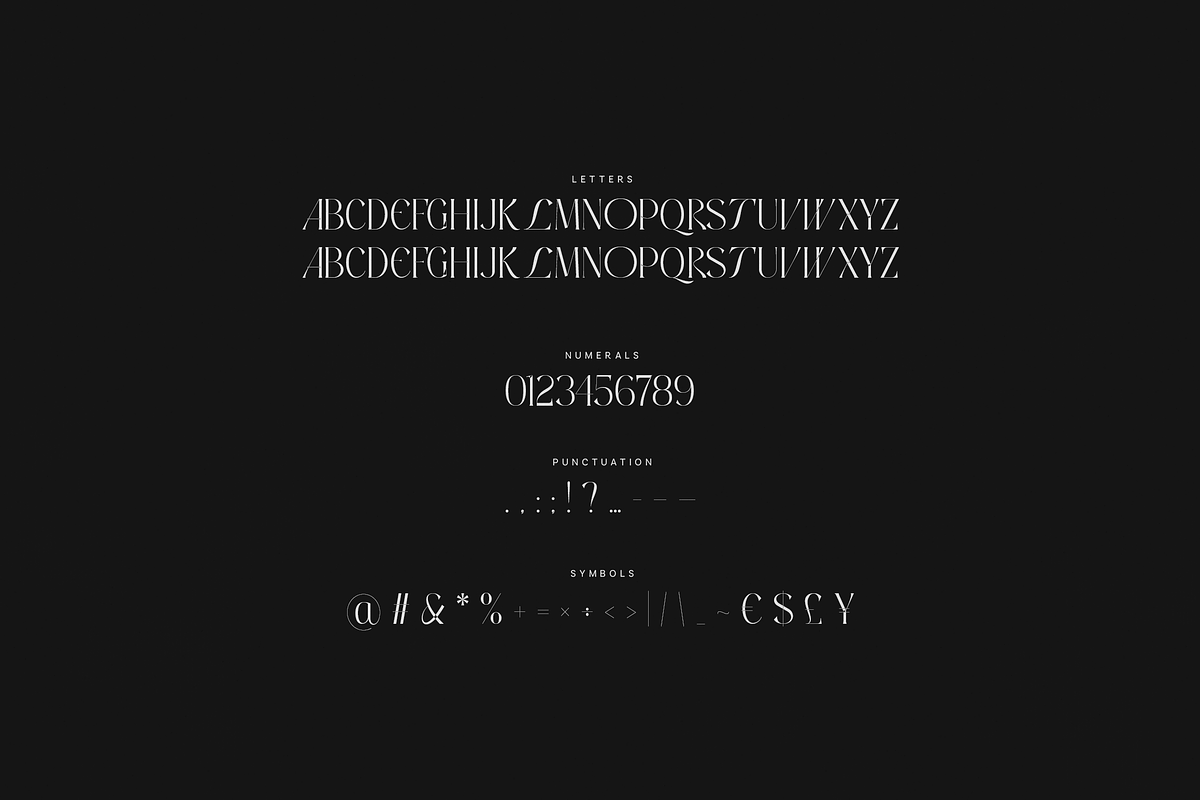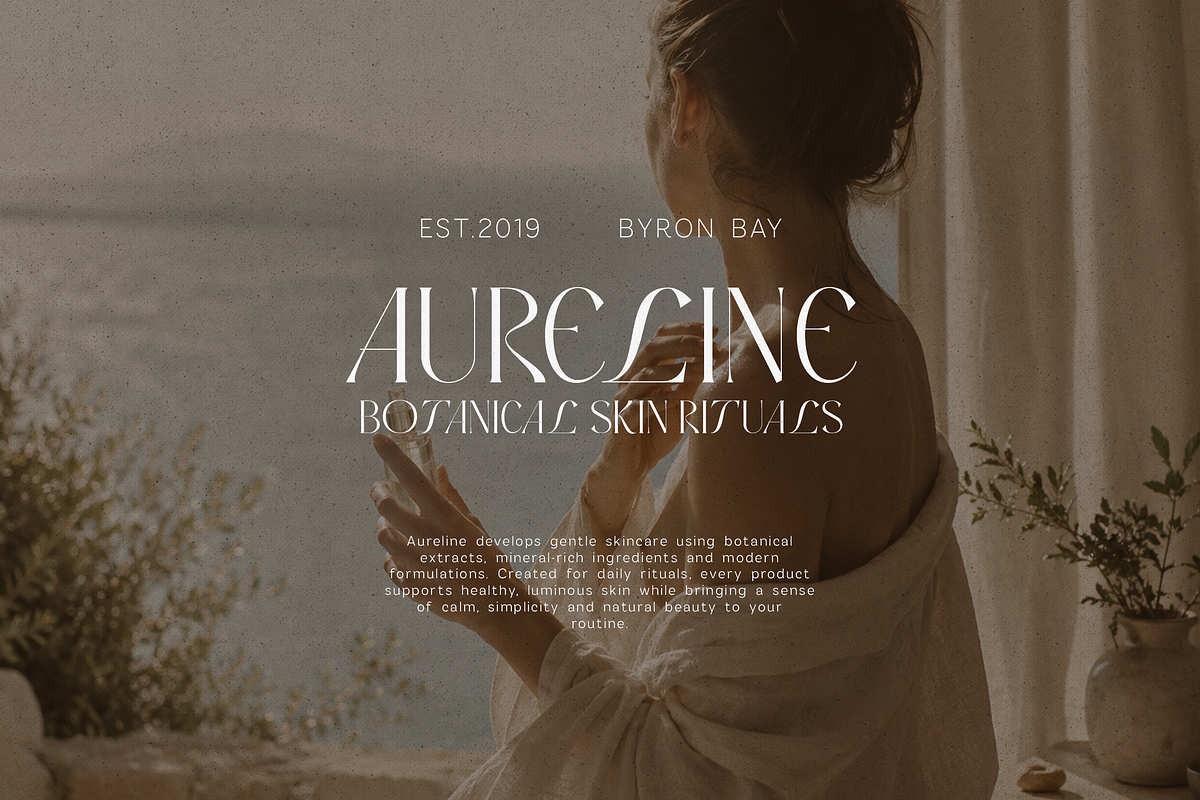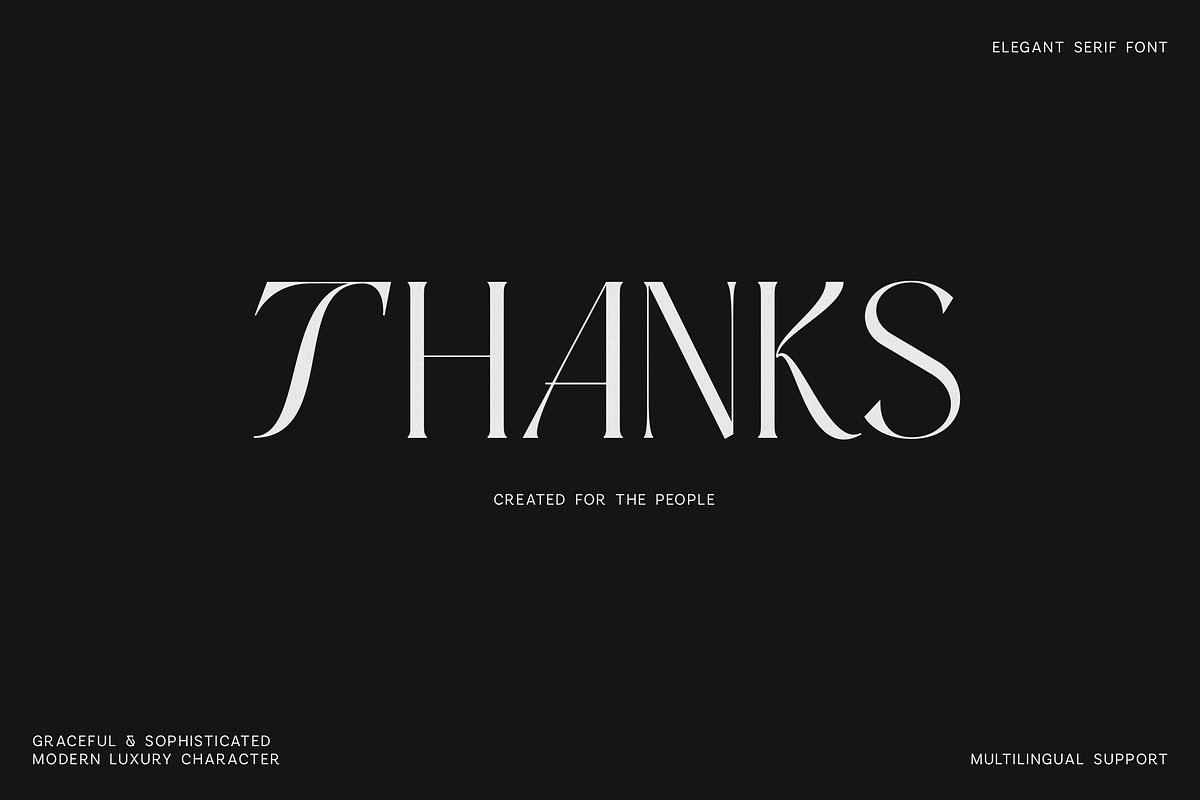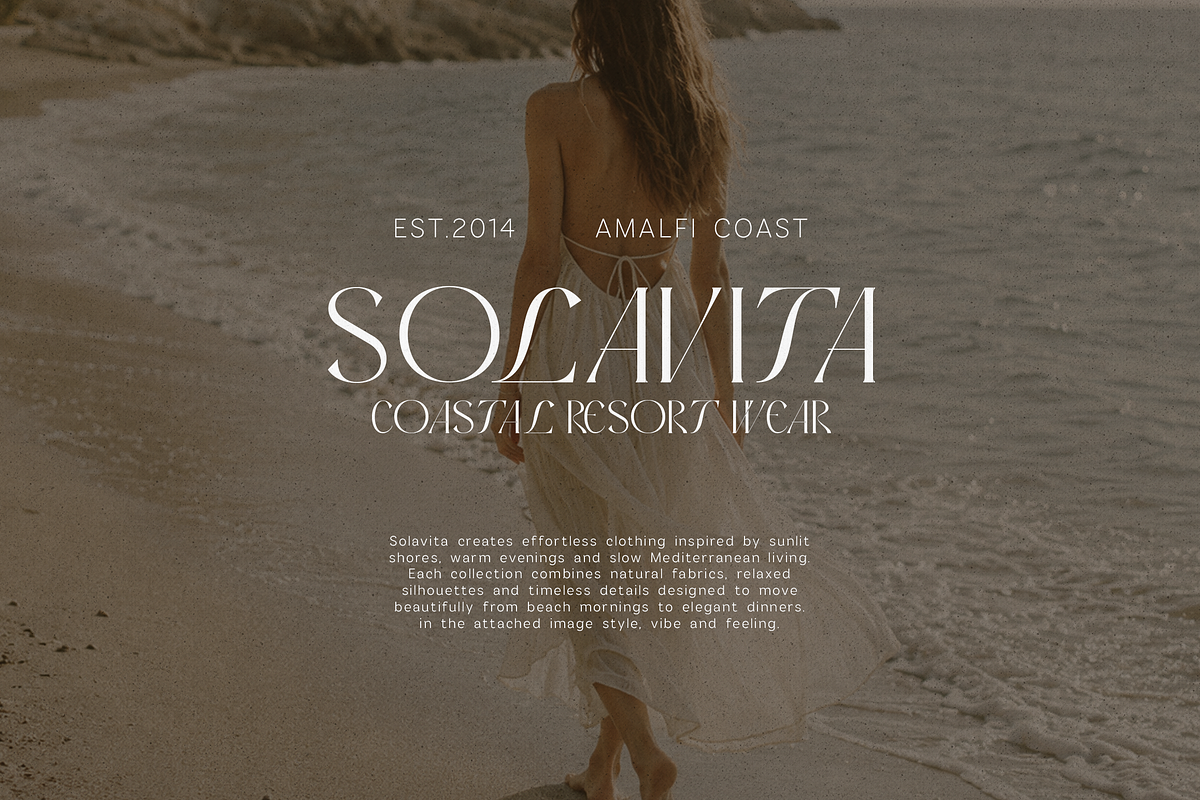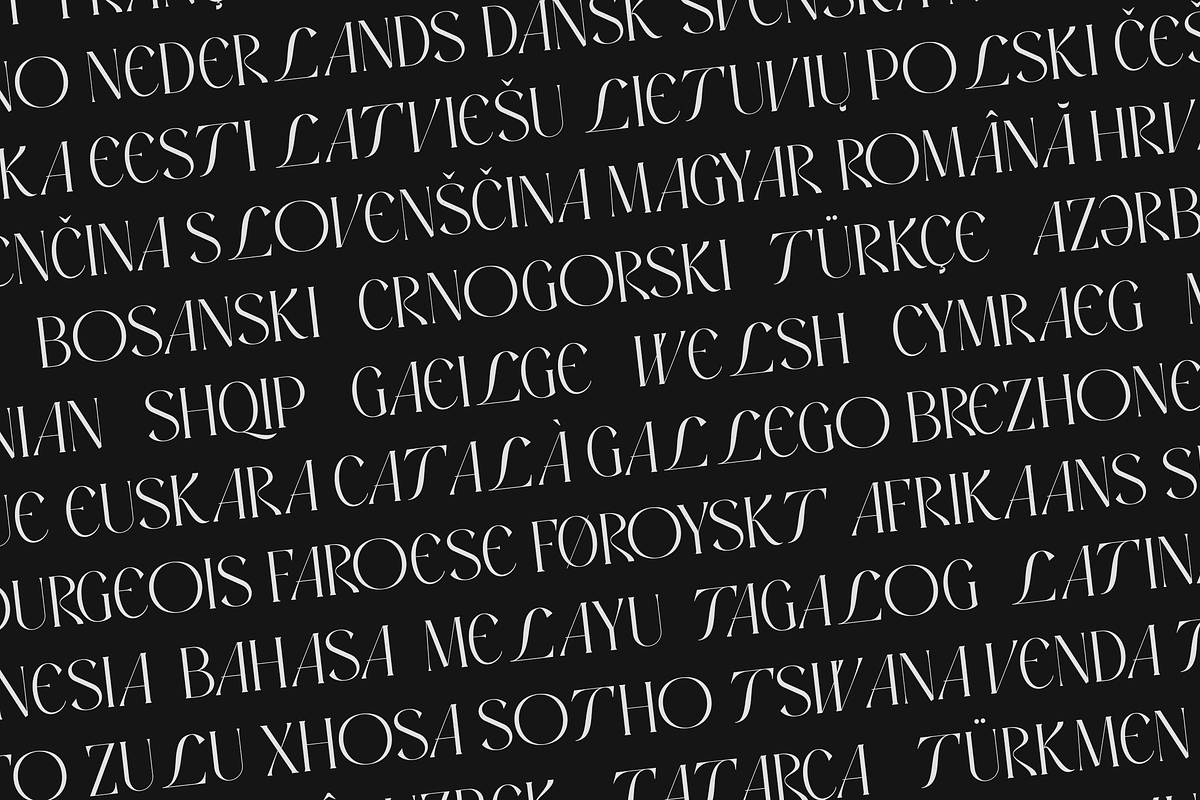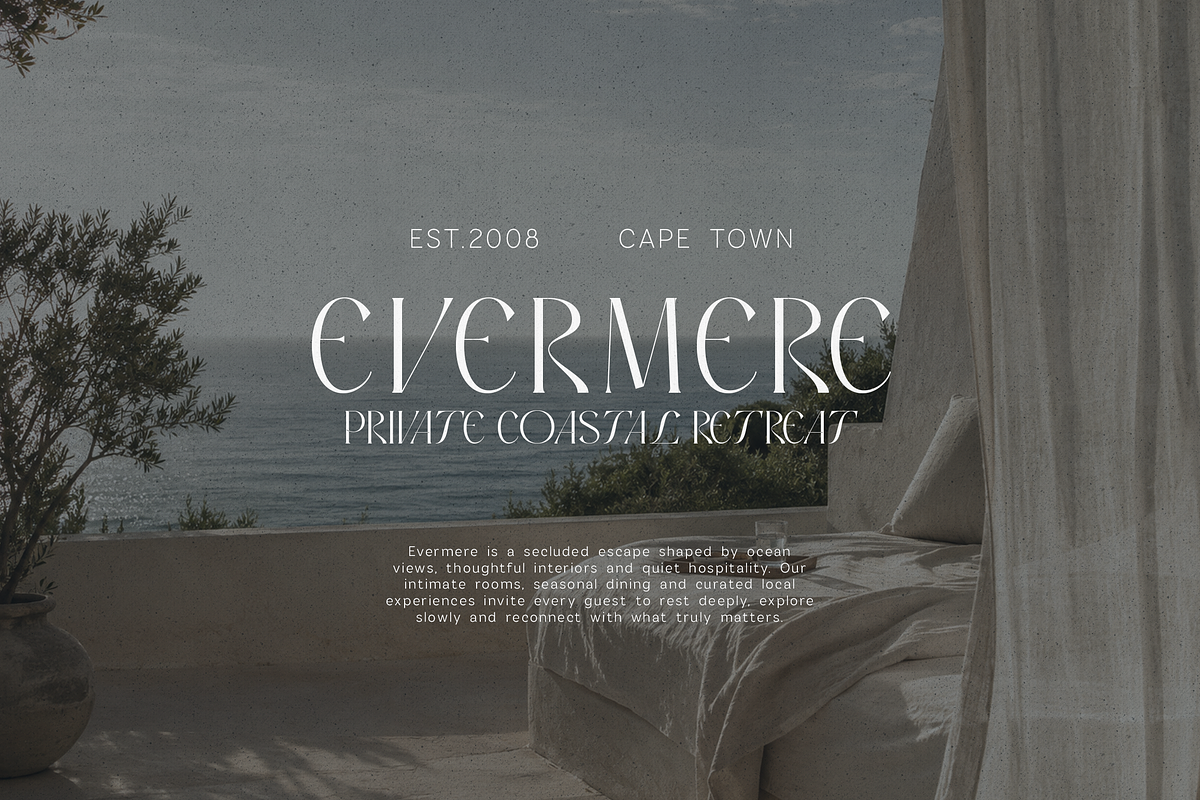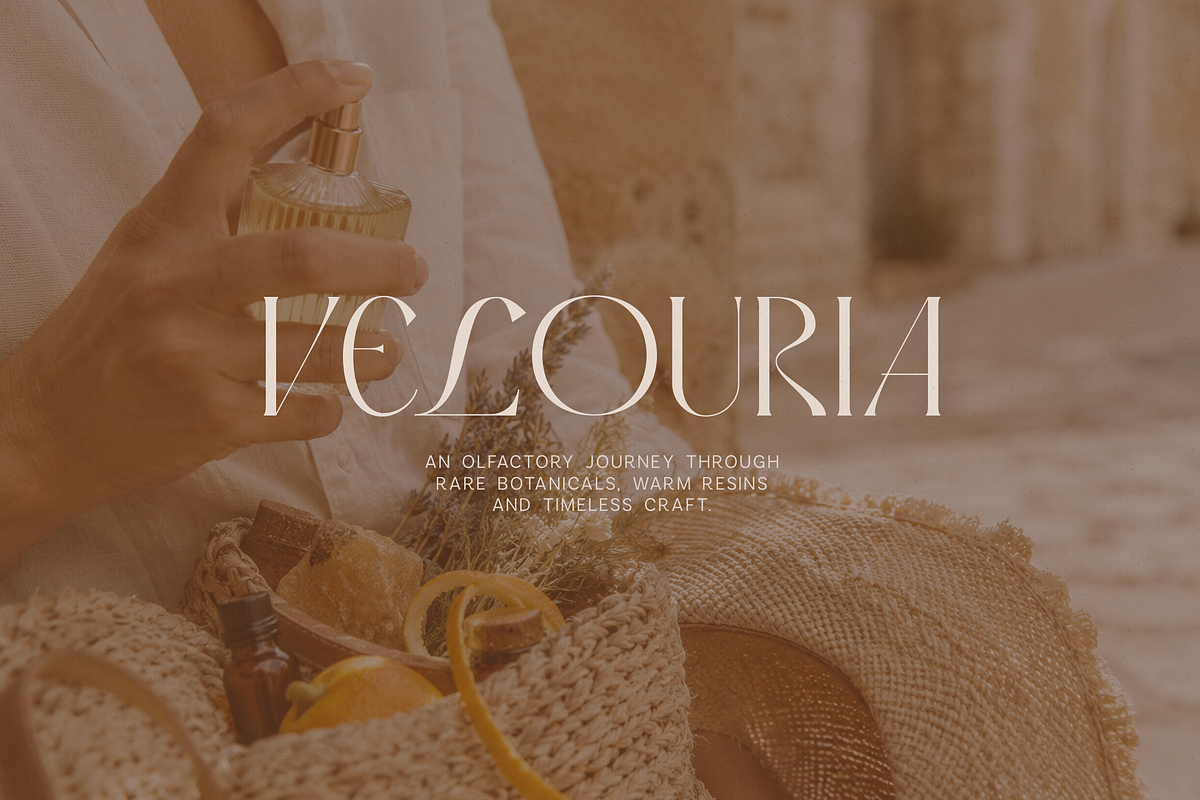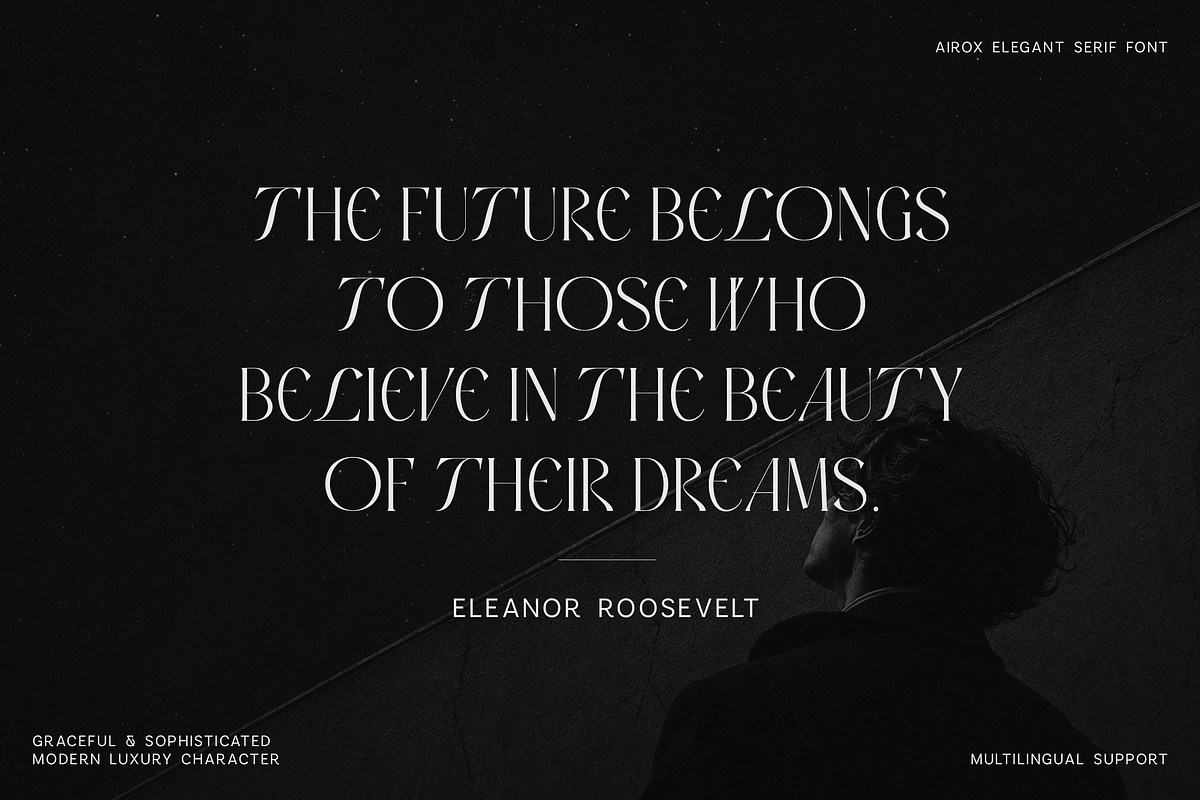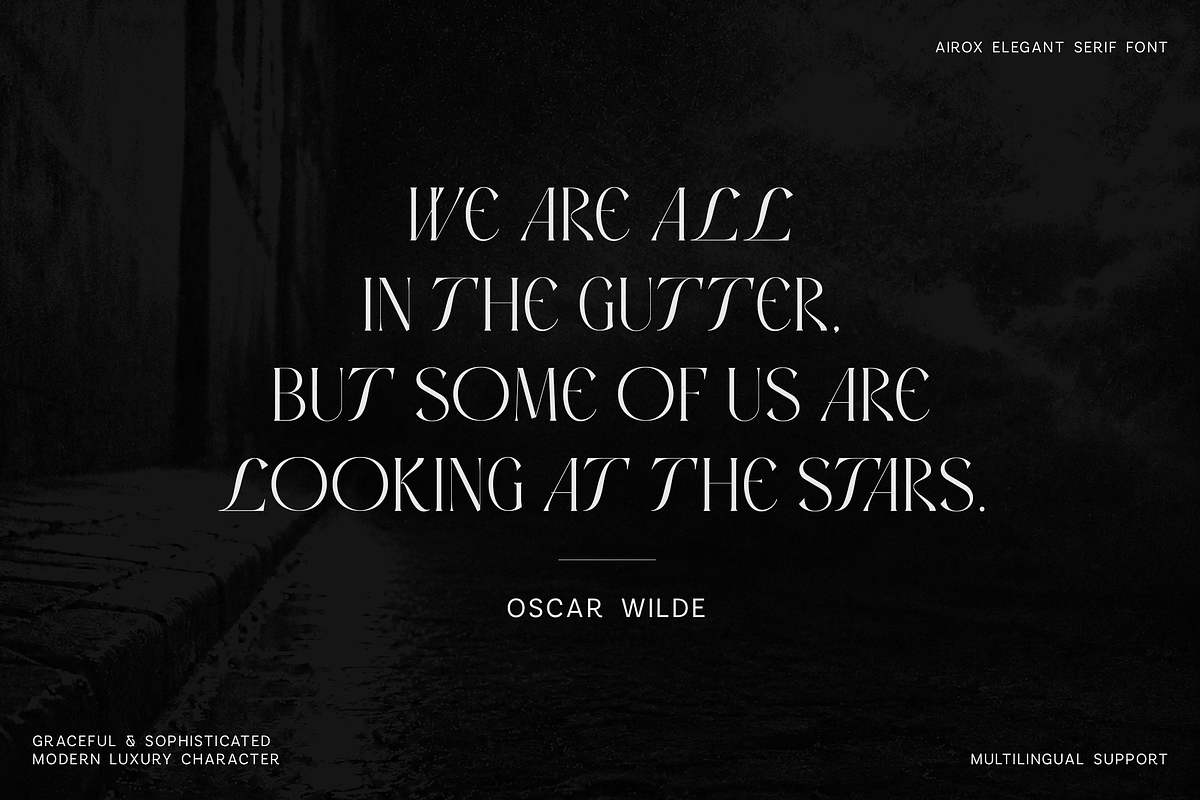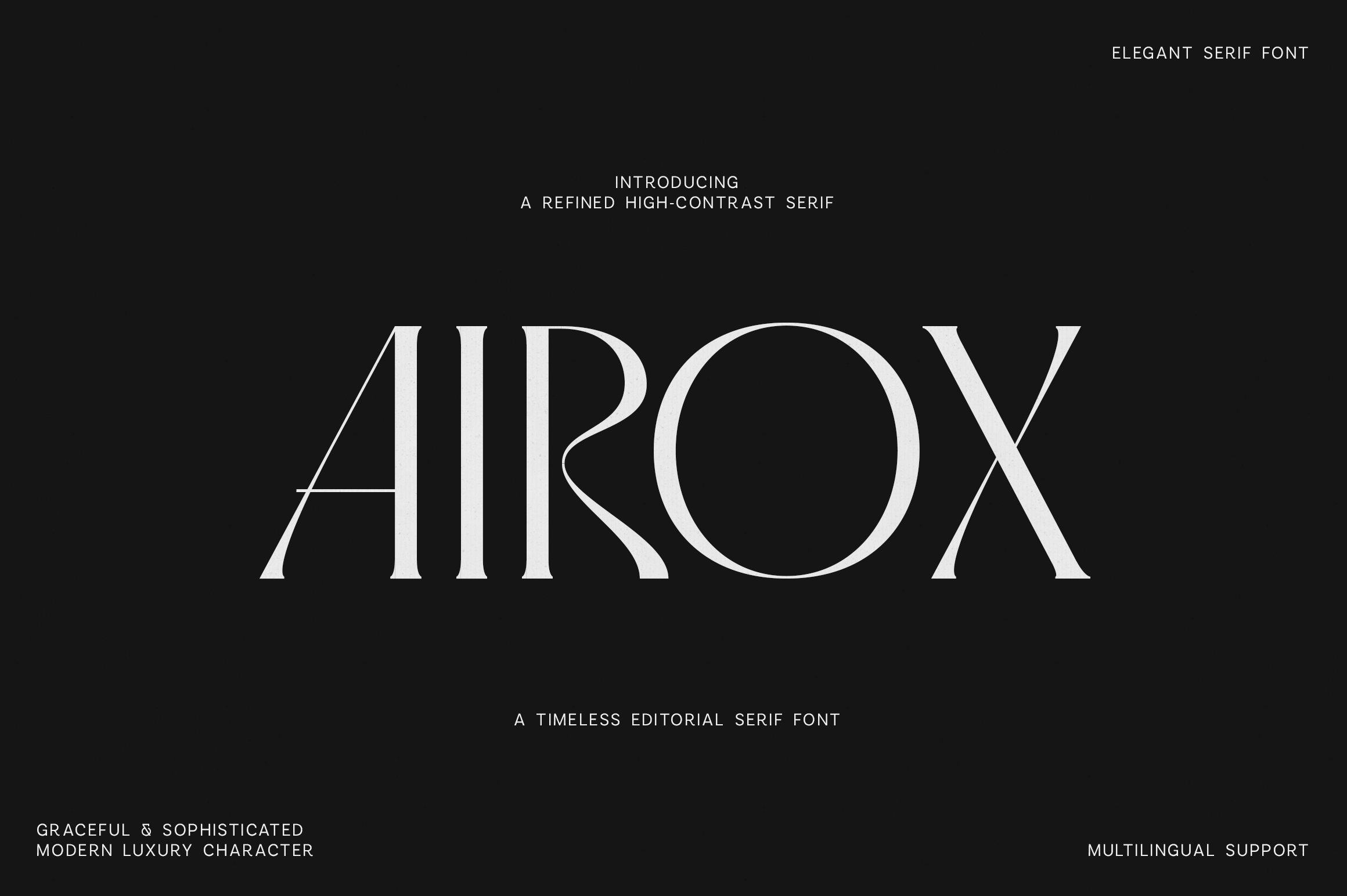
Airox Luxury Editorial Serif Font
Airox is an elegant serif font created for sophisticated branding, luxury editorials and striking display typography. Featuring refined high-contrast strokes, elongated proportions, sculptural curves and distinctive letterforms, Airox combines timeless elegance with a bold modern fashion aesthetic.
Its graceful yet expressive character makes it ideal for luxury logos, fashion branding, magazine layouts, beauty and perfume packaging, boutique hotels, resort identities, wedding stationery, restaurant menus, posters, invitations, social media graphics and stylish website headlines. Whether used for a minimal wordmark or an oversized editorial title, Airox adds a polished, exclusive and memorable presence to every design.
The font includes letters, numerals, punctuation, symbols and extensive multilingual support, making it suitable for international creative projects.